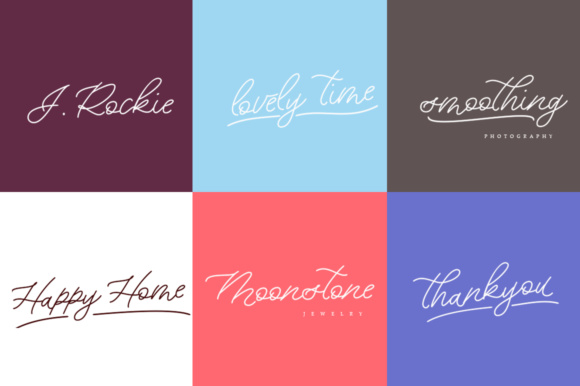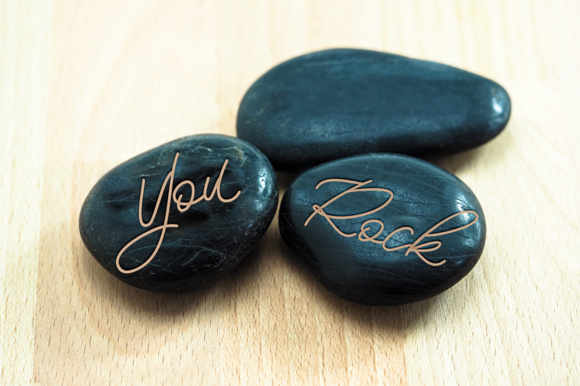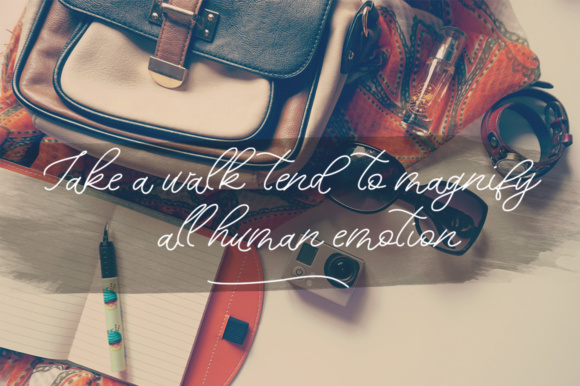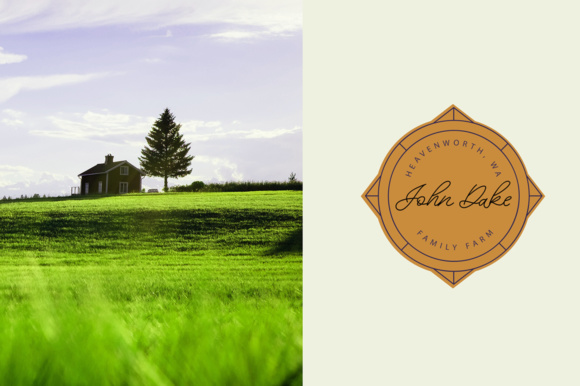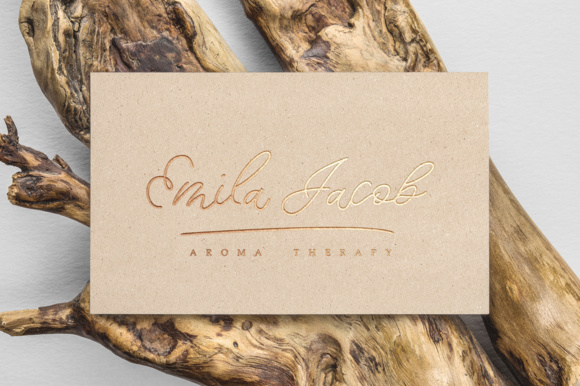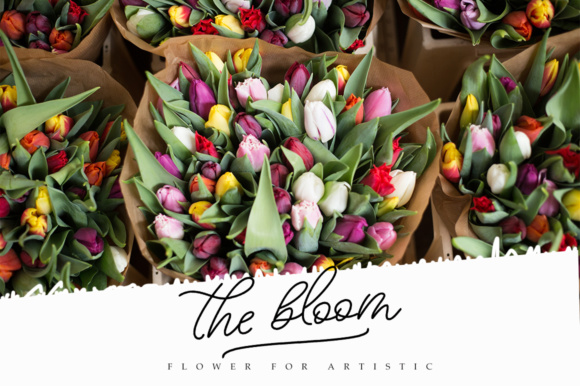
The Perfect Script: Unlocking the Beauty of Beloved Script Font
There’s something magical about holding a pen to paper and watching your creative ideas come to life. The scratch of the nib, the flow of the ink, and the joy of bringing a concept to reality. For designers, this moment is the spark that sets their imagination ablaze. And what better way to capture that spark than with the perfect script font?
Enter Beloved Script Font, a beautiful and simple handwriting script font that’s as versatile as it is elegant. Its good readability makes it perfect for titles or body texts, giving your designs a personal touch that’s hard to resist. For designers, this font is a valuable asset, offering a unique way to add character to their work and connect with their audience on a deeper level.
Key Features of Beloved Script Font
- Font Type: Script Font
- Font Style: Casual, Elegant, Whimsical
- Character Set: Latin, Cyrillic, Greek, and more
- Size: Supports font sizes from 8pt to 1000pt
- Resolution: Supports resolutions up to 1000 DPI
- Unique Characteristics: Handwritten feel, fluid connections between letters, and subtle flair at the ends of strokes
Designer Review: Beloved Script Font
When I first laid eyes on Beloved Script Font, I was immediately drawn to its elegant and romantic vibe ✨. The flowing connections between the letters are a delight to look at, making it perfect for wedding invitations, greeting cards, and other special occasions. The font’s gentle curves and rounded edges give it a soft, feminine touch that’s both soothing and visually appealing.
One of the standout features of Beloved Script Font is its versatility ✨. It’s available in multiple weights, from Light to Heavy, allowing you to create a range of visual effects and emphasis. Additionally, the font’s OpenType features make it easy to access and customize its various styles and alternates.
- ⚠️ Limited language support, making it less suitable for multilingual projects
- ⚠️ May not be the best choice for body text, as it can be difficult to read in smaller sizes
- ⚠️ Some users may find the font’s ornate nature overwhelming or busy
Overall, I’m impressed with Beloved Script Font’s beauty and flexibility ✨. While it may have some limitations, it’s a great choice for designers looking to add a touch of whimsy and romance to their projects. Just be mindful of its language support and use it thoughtfully to avoid overwhelming the viewer’s senses.
Beloved Script Font is ideal for creating elegant and sophisticated designs, making it perfect for wedding invitations, baby shower invitations, and other special occasions. To get the most out of this font, use it in combination with other elegant fonts and design elements, such as floral patterns and soft colors.
Alternatives to Beloved Script Font
Pacifico is a modern script font with a relaxed and casual feel. It is perfect for use in invitations, greeting cards, and other designs where a friendly and approachable tone is desired. Compared to Beloved Script Font, Pacifico has a more laid-back and casual vibe, making it ideal for everyday use.
Great Vibes is a elegant script font with a touch of sophistication. It is suitable for use in luxury branding, high-end advertising, and other designs where a premium feel is desired. Compared to Beloved Script Font, Great Vibes has a more refined and luxurious look, making it perfect for high-end designs.
Carolyna Pro is a beautiful script font with a mix of modern and vintage elements. It is perfect for use in editorial designs, packaging, and other designs where a unique and stylish tone is desired. Compared to Beloved Script Font, Carolyna Pro has a more eclectic and artistic look, making it ideal for designers who want to add a touch of personality to their designs.